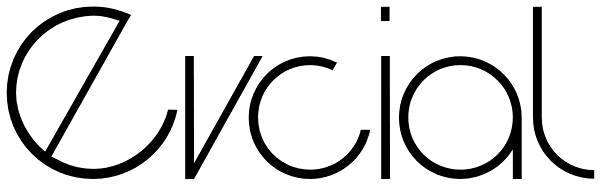
Evcial
Inspired by the elegant, rounded geometry of classic sans-serifs like Harry™ and Cirkulus™, Evcial was designed in 2000 to serve as the logo font for EVCco's website. The composition of each alpha-numeric glyph in Evcial is restricted solely to...